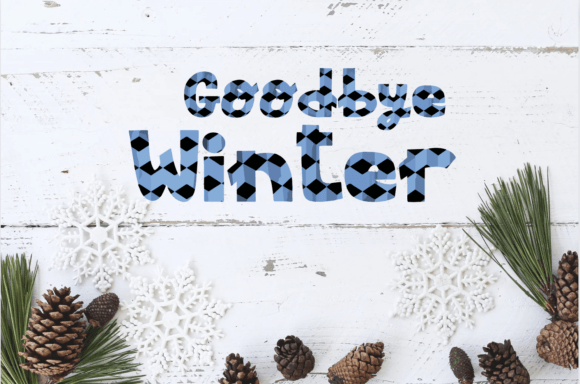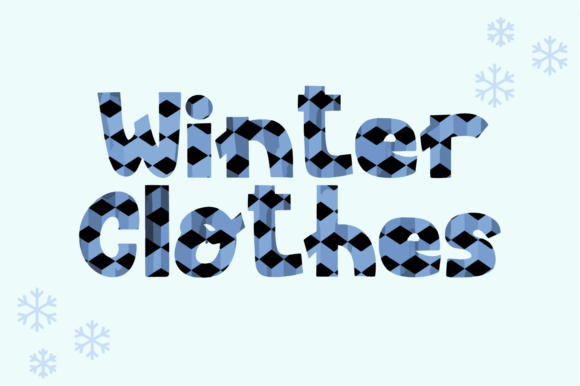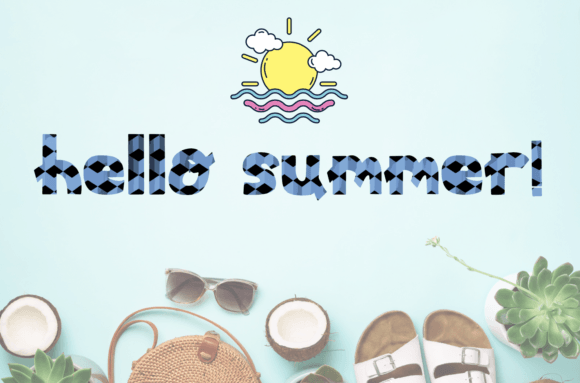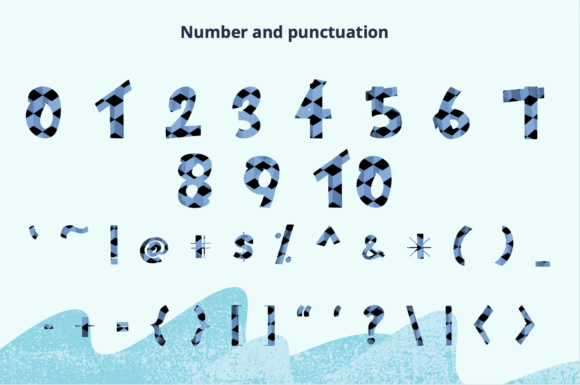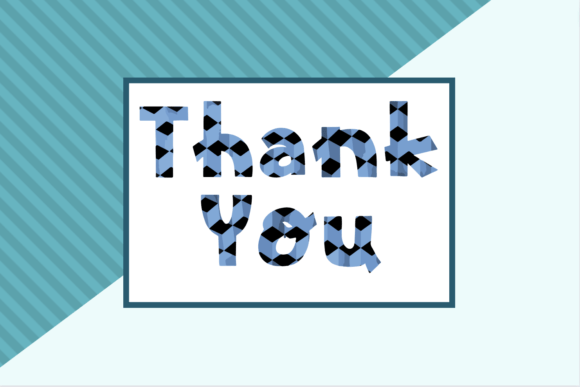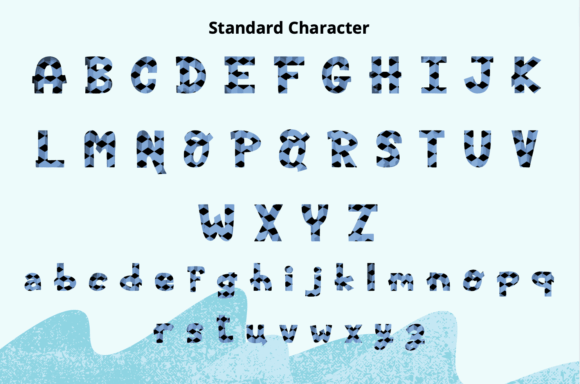
Unleashing Your Creativity with Blue Wave Font
Have you ever been working on a project and suddenly felt like something was missing – a dash of personality, a splash of color, a pinch of whimsy? That’s when the magic happens, and you start to think outside the box, or in this case, outside the font options. For designers looking to add a playful touch to their work, the Blue Wave Font is here to save the day.
This enchanting color font is designed to bring a sense of fun and creativity to any project. With its unique blend of style and functionality, the Blue Wave Font is an excellent addition to any designer’s toolkit. Whether you’re working on a logo, a poster, or a digital design, this font is sure to make your work stand out from the crowd.
Blue Wave Font Key Features
- Font Style: A unique, hand-drawn font with a wavy, dynamic feel, perfect for creative and expressive designs.
- Unique Characteristics: Features a distinctive wave-like design element, adding a touch of whimsy and personality to any text.
Blue Wave Font Review
Overall, I think the Blue Wave Font is a solid choice for projects where you want to evoke a sense of calmness and serenity. ✨ The font’s rounded edges and gentle curves give it a soothing quality that’s perfect for branding, logos, or even body text.
- ✨ The font’s versatility: Blue Wave works well in both digital and print media, making it a great choice for multi-channel branding.
- ✨ The font’s legibility: Despite its rounded edges, Blue Wave is still highly readable, even at smaller font sizes.
- ✨ The font’s expressiveness: Blue Wave has a lot of character and can be used to convey a sense of friendliness or approachability.
- ⚠️ The font may not be suitable for projects that require a lot of emphasis or boldness. Blue Wave’s rounded edges can make it difficult to create a sense of urgency or importance.
- ⚠️ The font may not be the best choice for projects that require a lot of technical or scientific content. Blue Wave’s rounded edges can make it difficult to create a sense of authority or expertise.
Overall, I think the Blue Wave Font is a great choice for projects that require a sense of calmness and serenity. While it may not be the best choice for every project, it’s definitely worth considering for branding, logos, or body text.
Tips for Getting the Most Out of Blue Wave Font
For best results, use the Blue Wave Font in combination with a contrasting background color to make the text stand out. You can also experiment with different font sizes and styles to create a unique visual effect.
The Blue Wave Font is ideal for creative and expressive designs, such as social media graphics, posters, and flyers. It’s also a great choice for adding a touch of whimsy to business presentations and marketing materials.